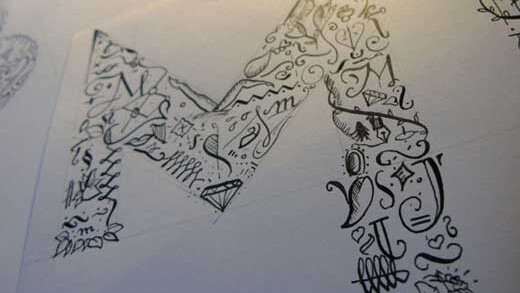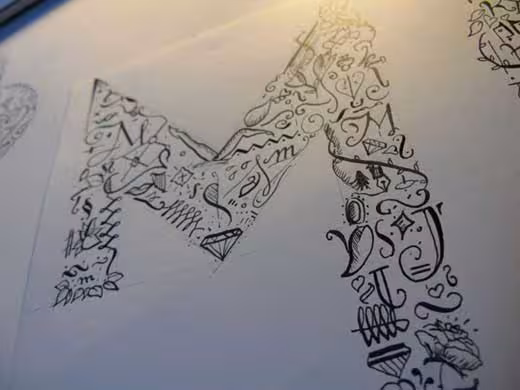
Designer Giuseppe Salerno has released a typeface called Arcano Type, available as a font and vector, that was painstakingly hand-drawn over four months.
The calligraphic font, which is designed for large text, was drawn using Chinese ink on Japanese calligraphy paper and then scanned and traced in Fontlab. The font is available for a meager 30 euros here.
Most new fonts are created entirely digitally using software such as Fontlab–it’s refreshing to see something crafted with such detail by hand.